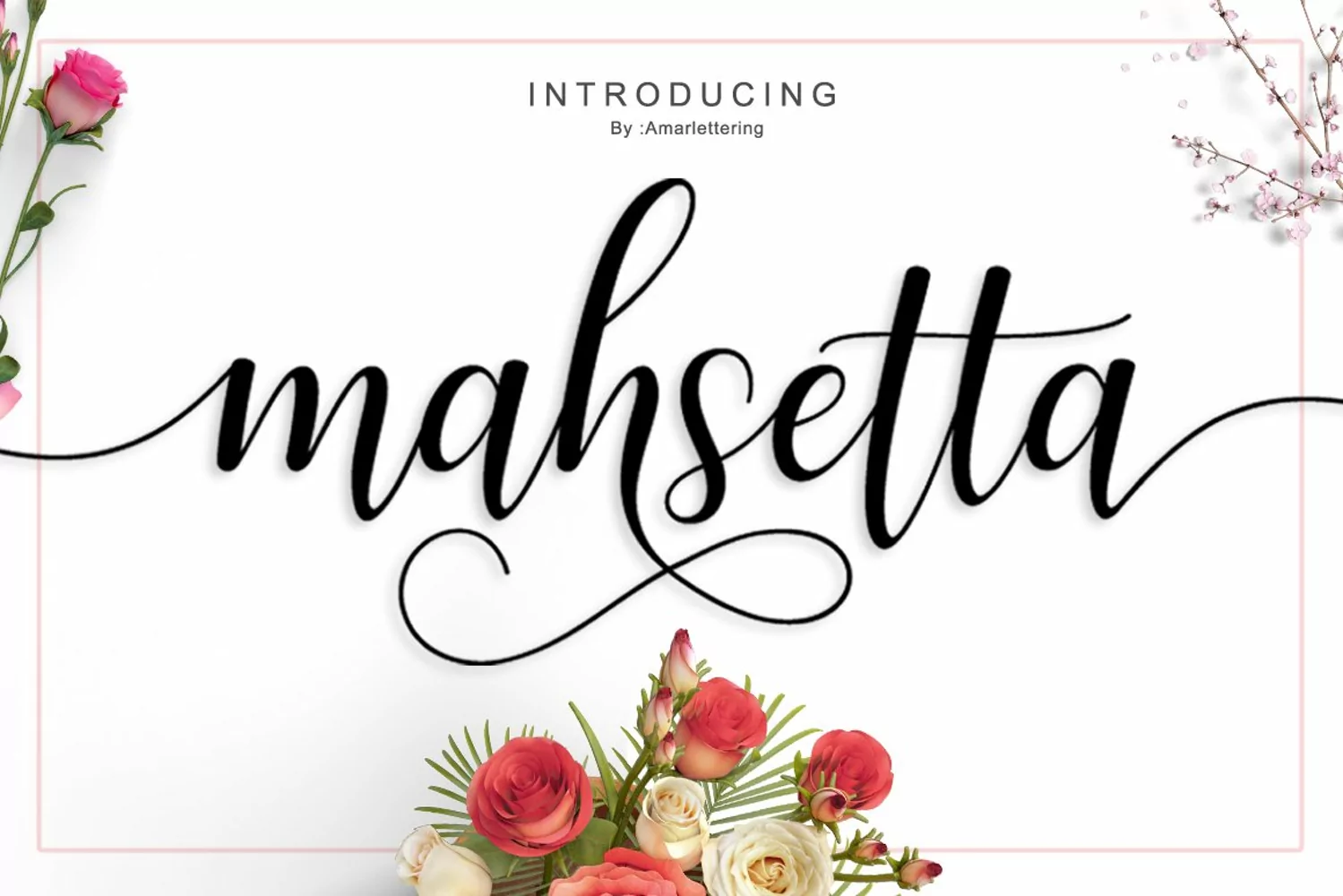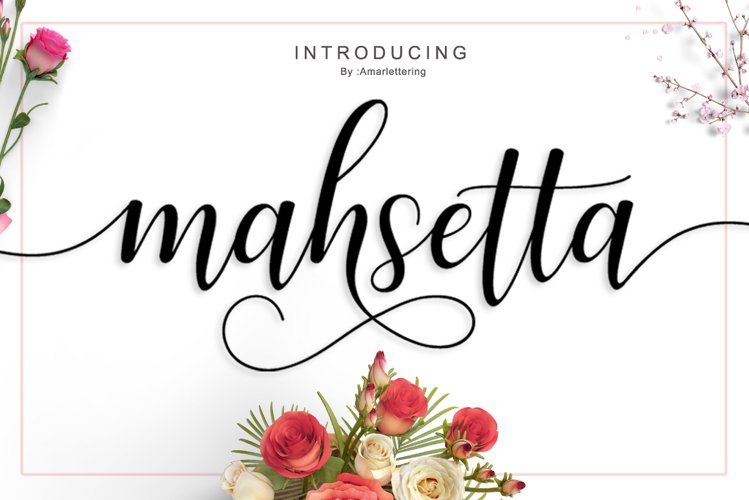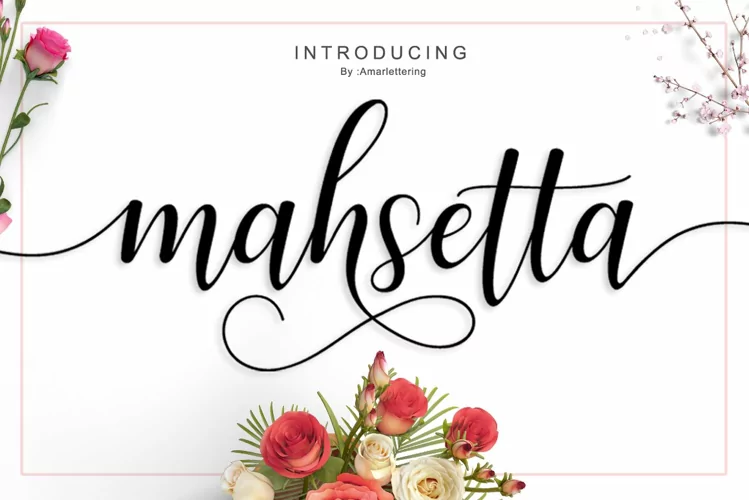
Web Font Mahsetta Script
Mahsetta script is a classic and beautiful script font, perfect for a range of craft and design projects. Mahsetta Script comes with 473 glyphs and is diverse enough to keep your projects fresh for years.